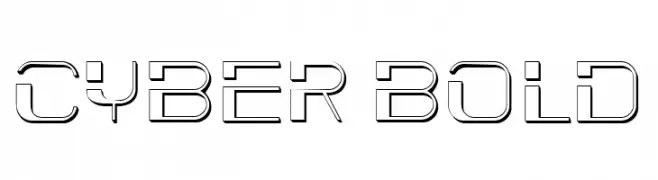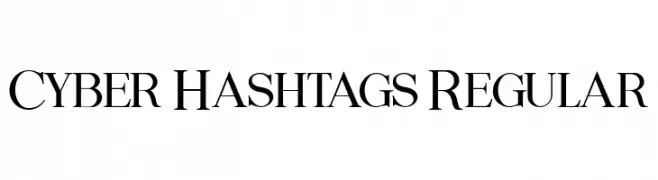
A bold, geometric font with a futuristic and digital aesthetic.
A futuristic, italic font with bold, angular characters and a modern aesthetic.
A bold, 3D italic font with a futuristic and dynamic style.
A bold, futuristic font with a 3D filled effect and geometric design.
A bold, abstract font with a futuristic and alien-like design.
A bold, angular font with sharp edges and a futuristic style.
A classic serif font with elegant strokes and balanced proportions.
A futuristic, digital-themed font with bold, geometric letters and a layered, striped design.
A futuristic, geometric font with bold, angular letterforms and a digital aesthetic.
A bold, geometric font with a futuristic, industrial design.